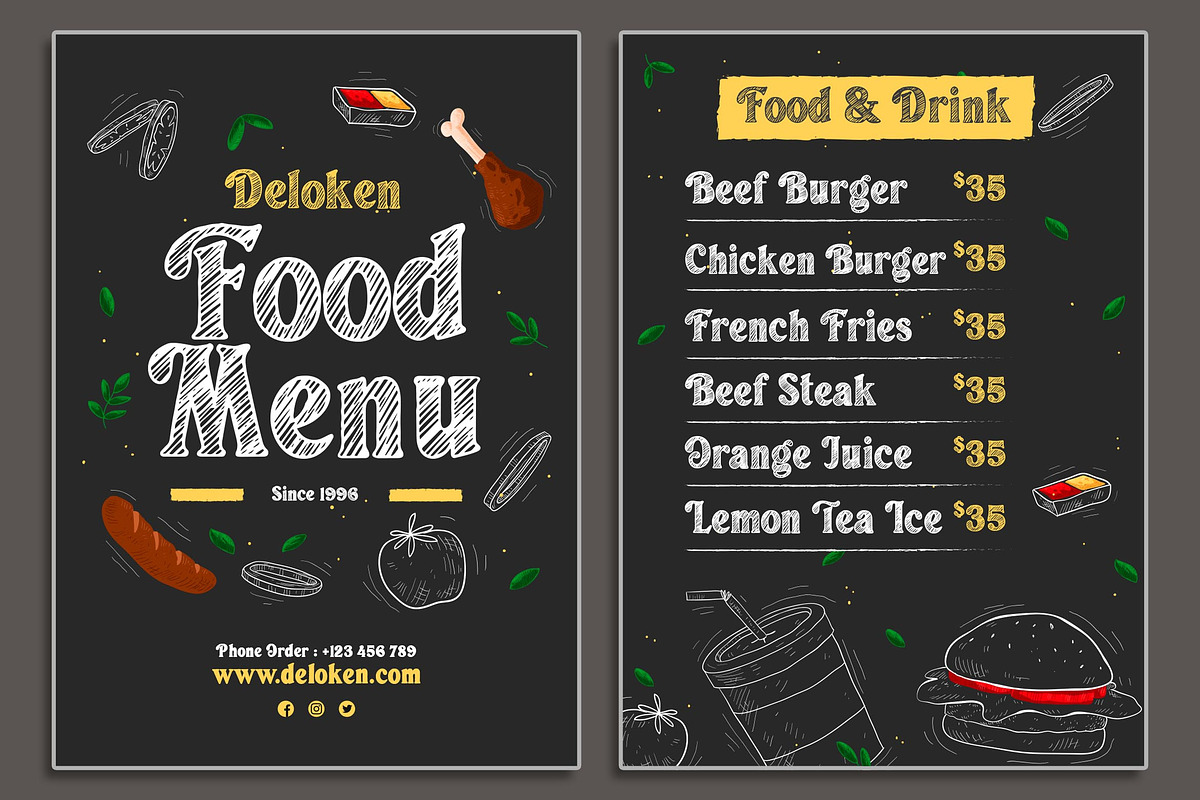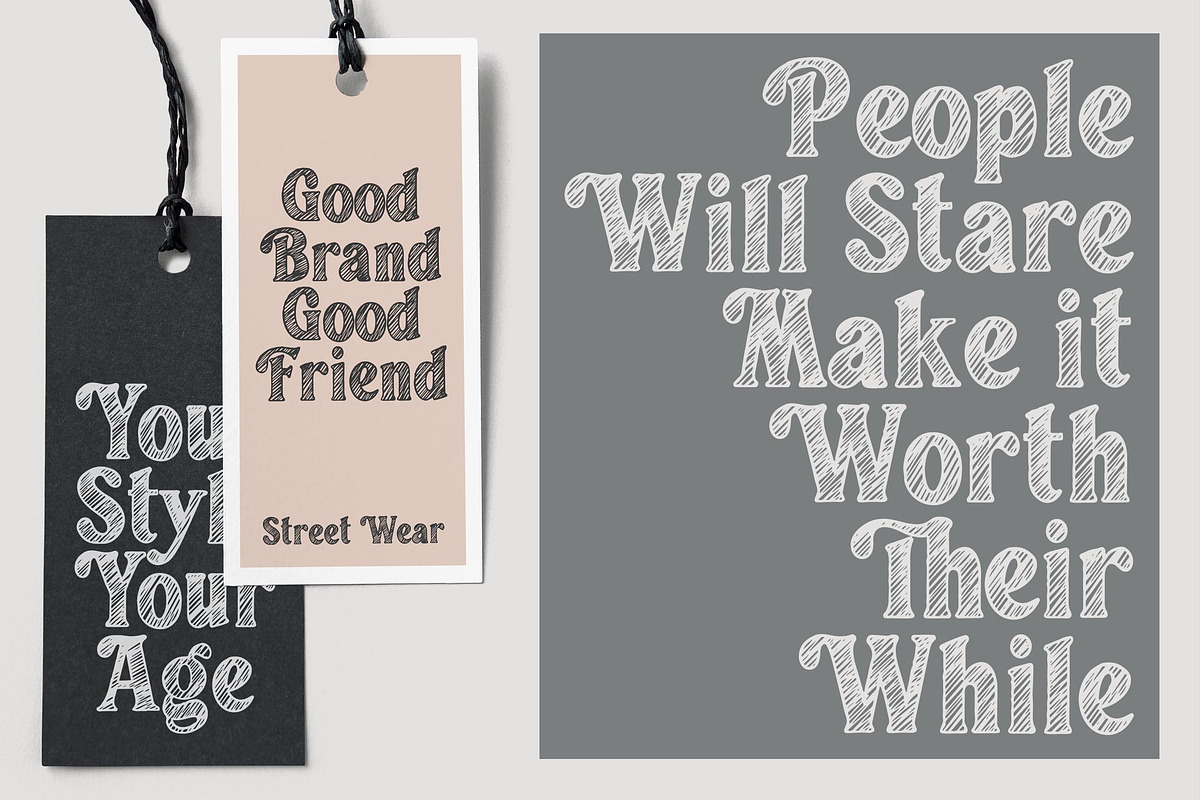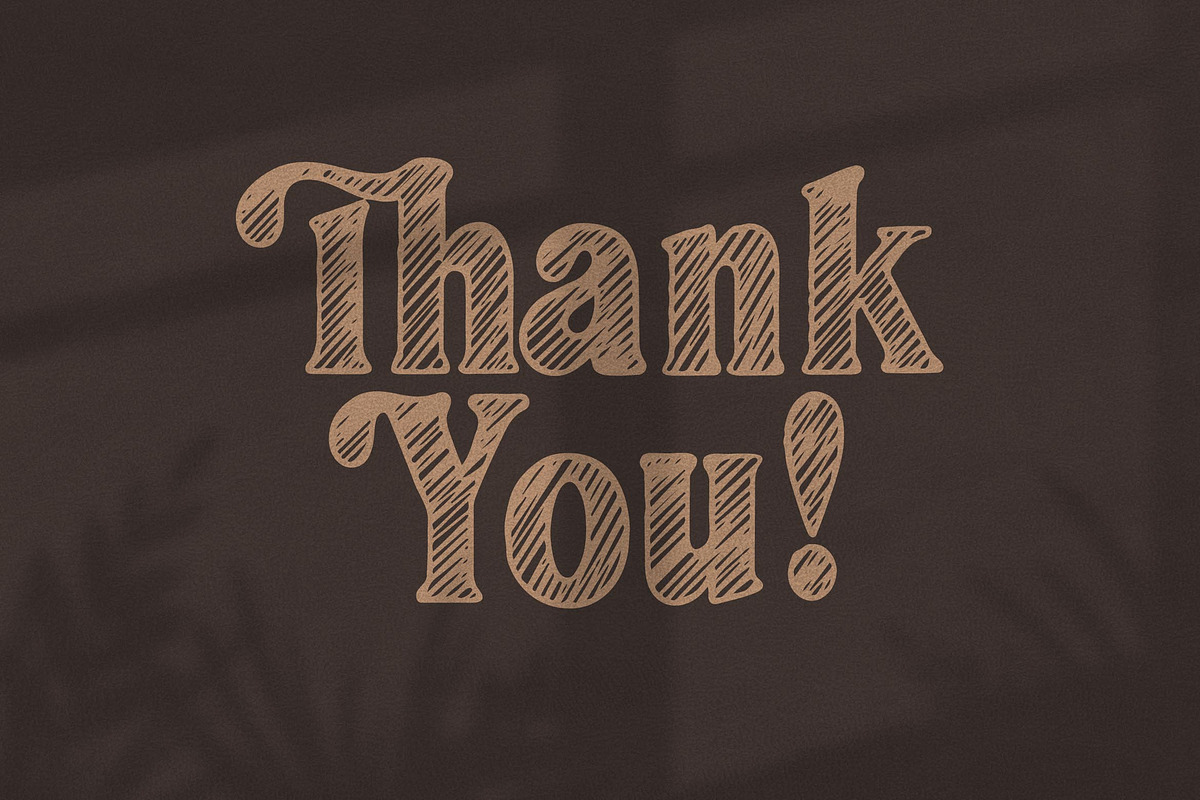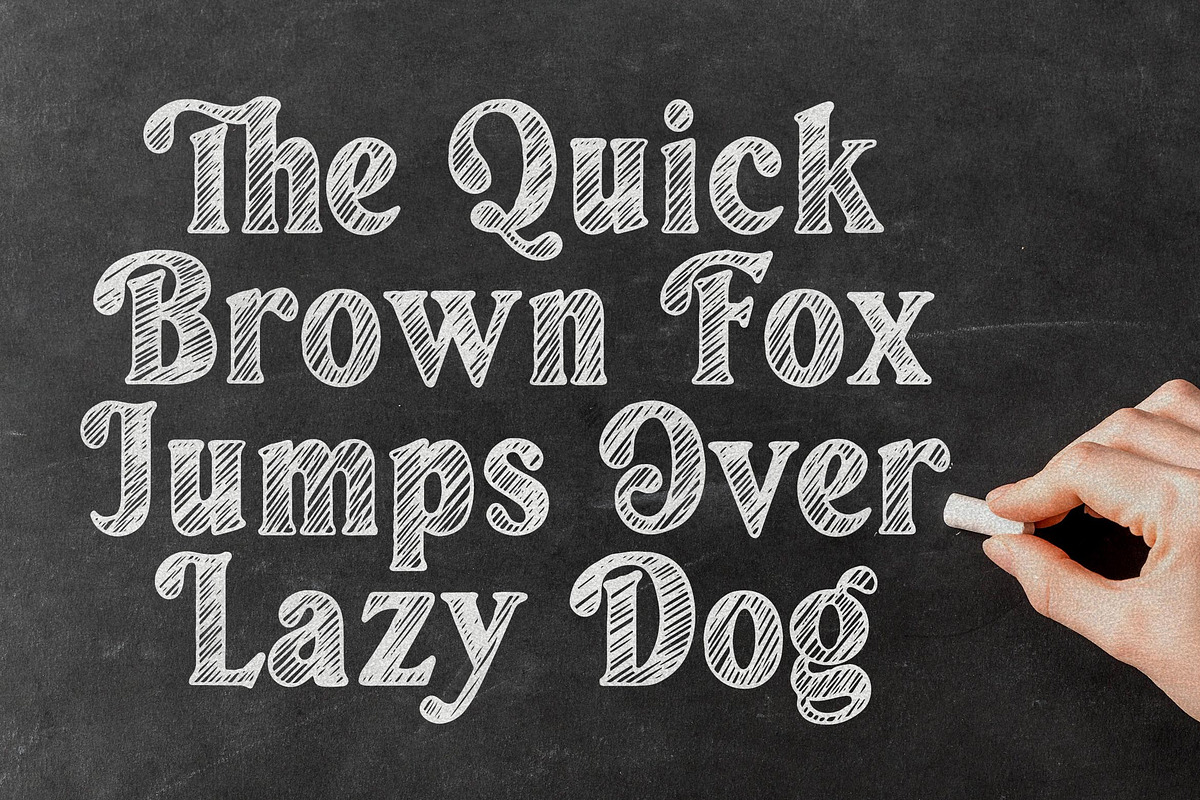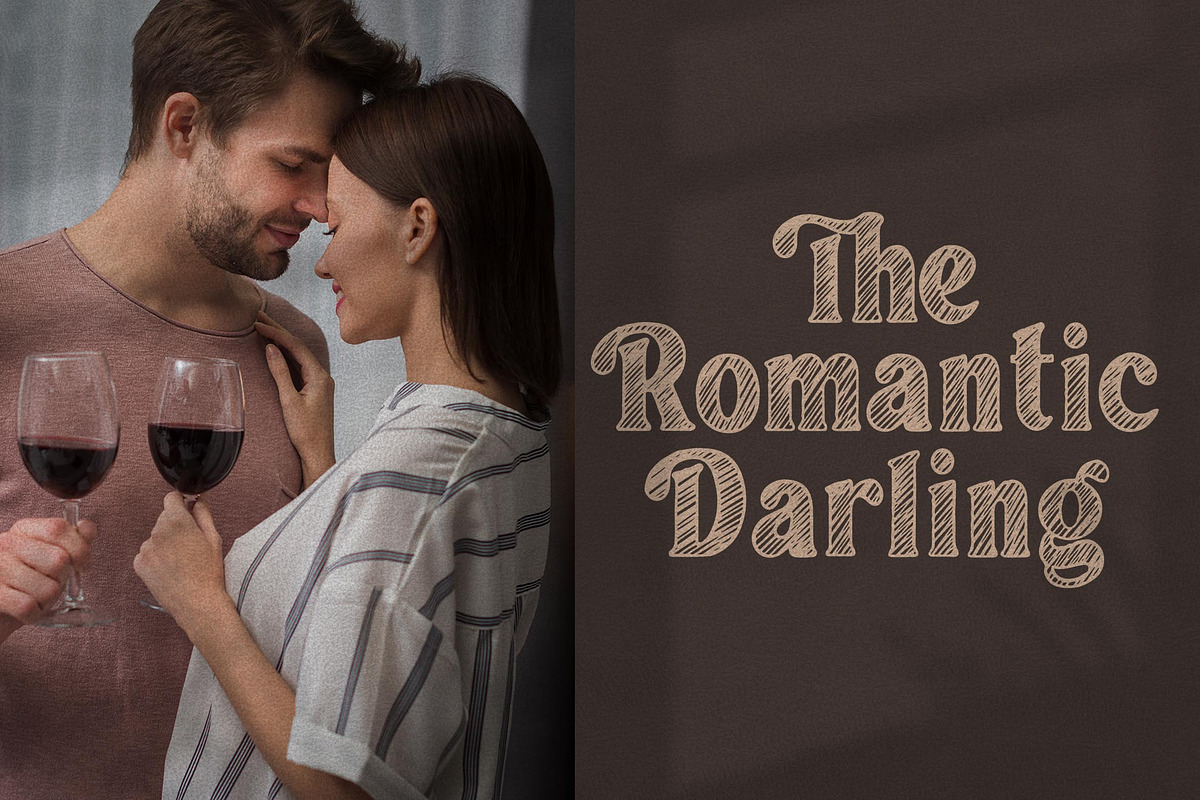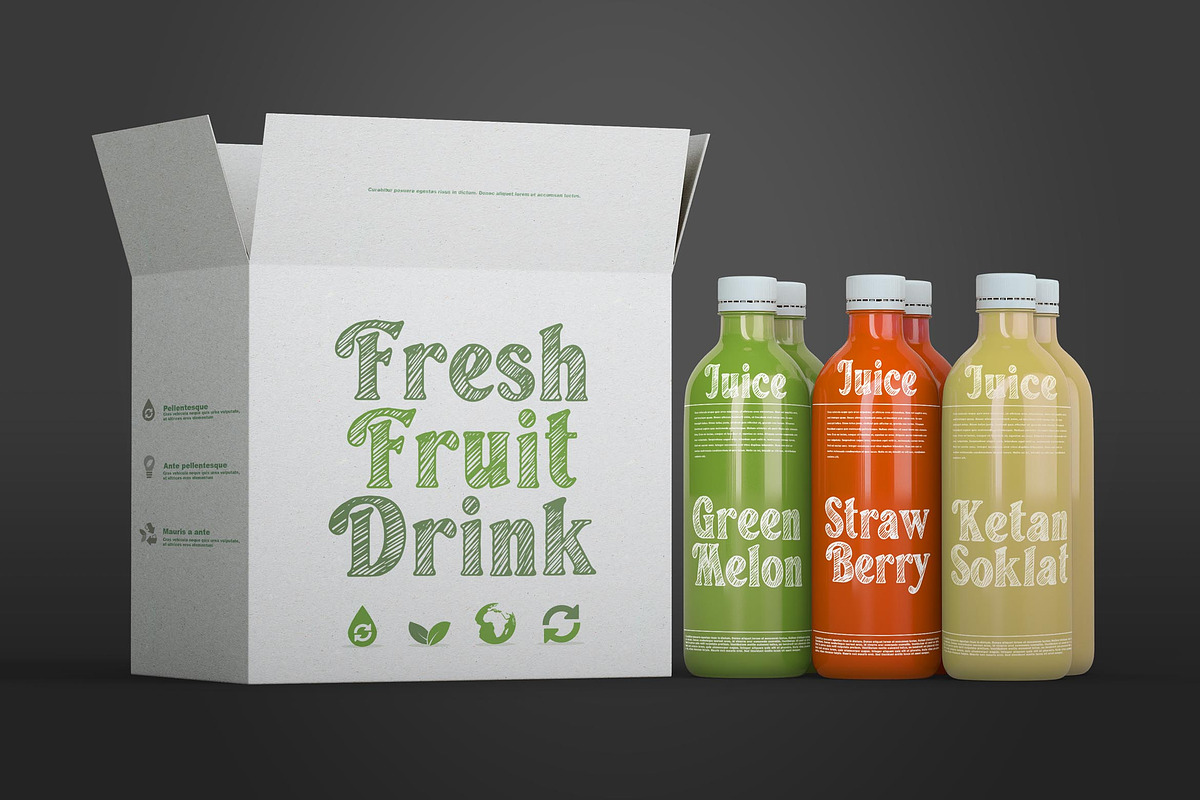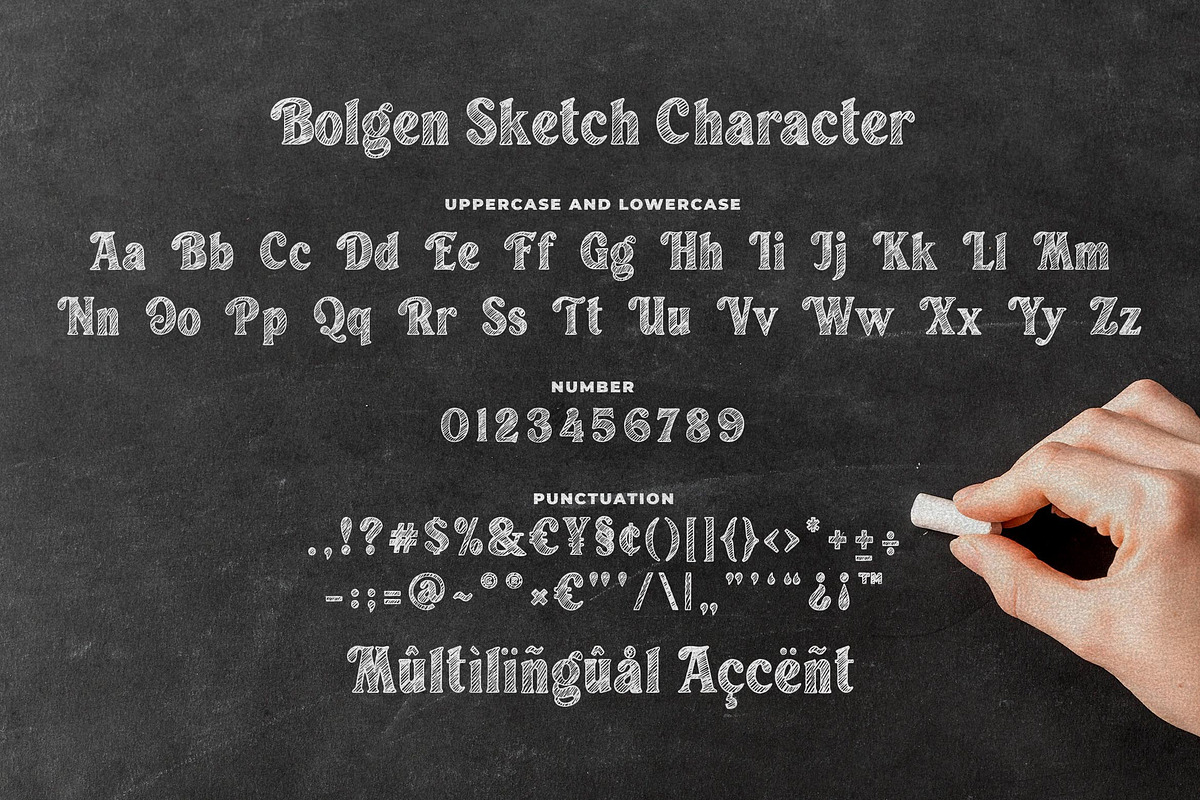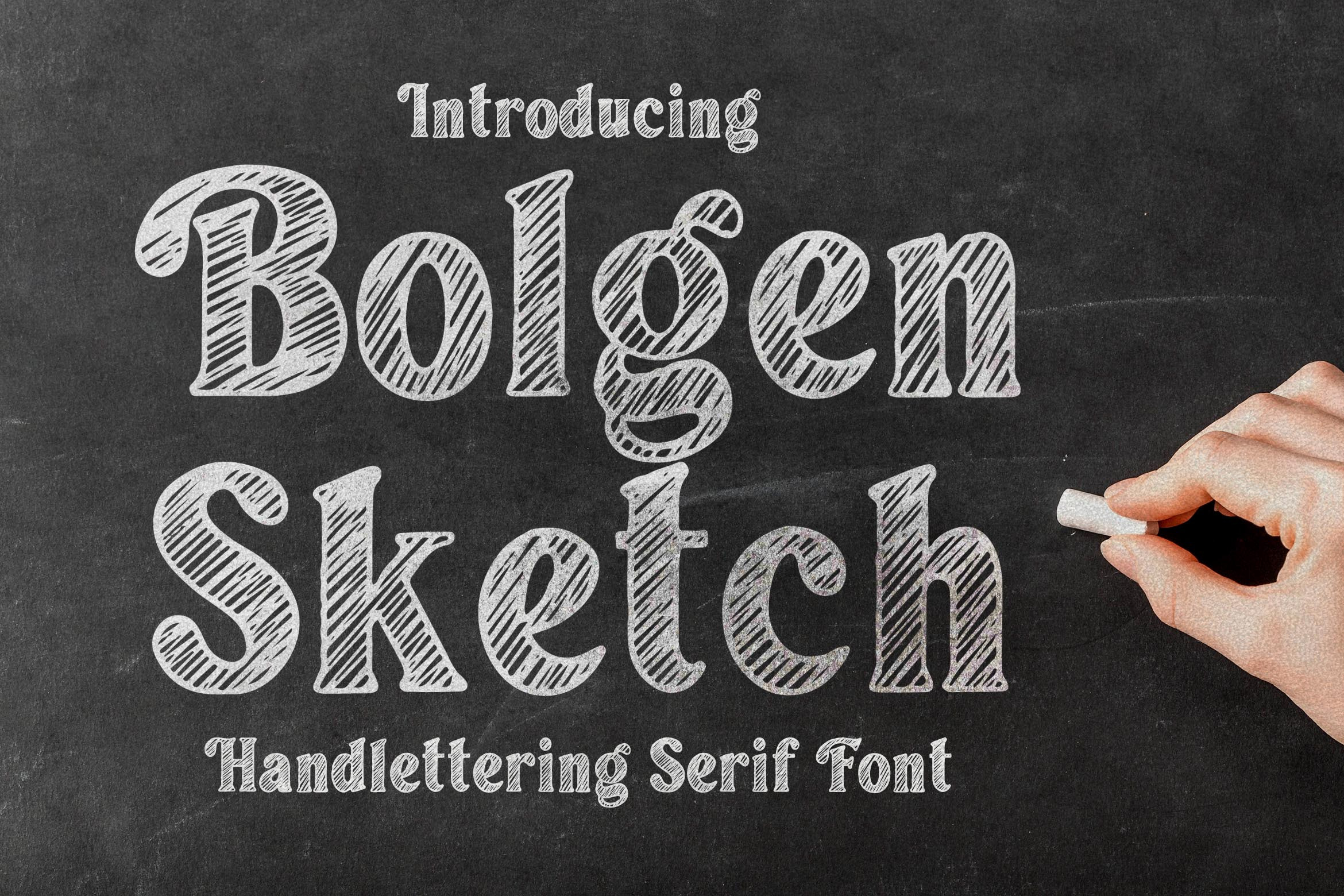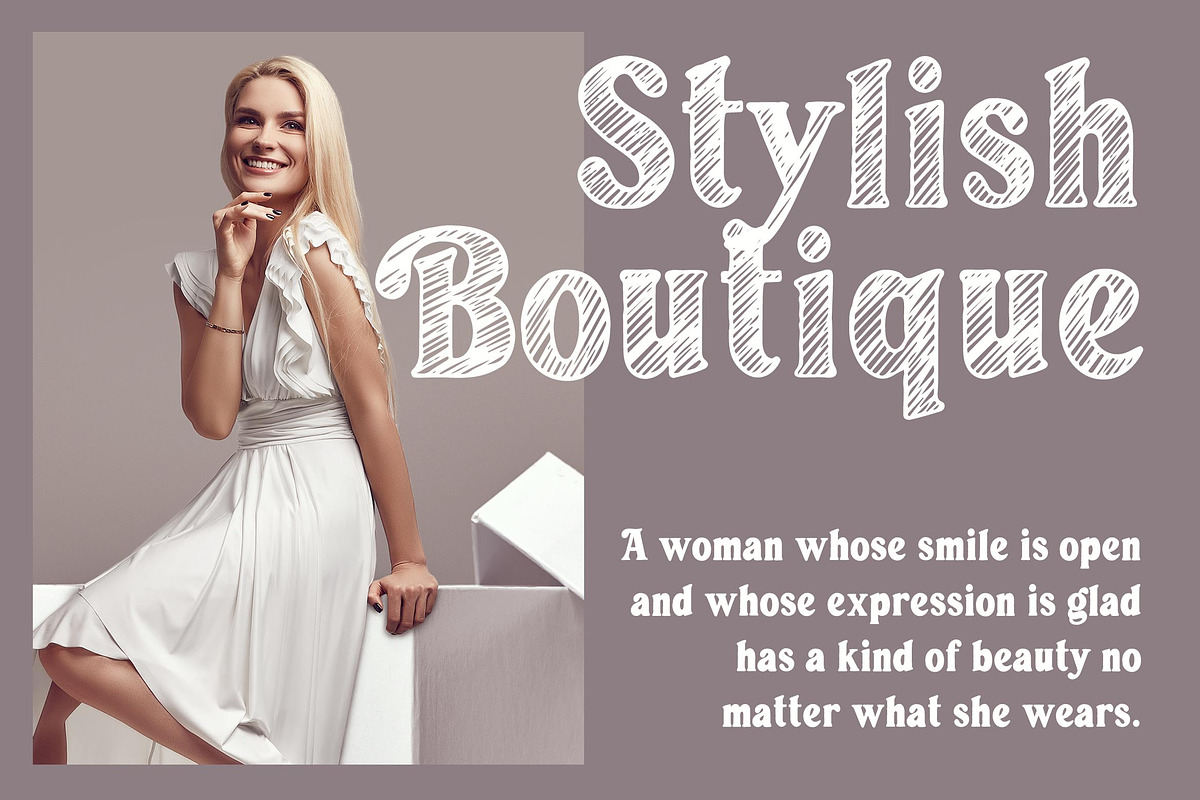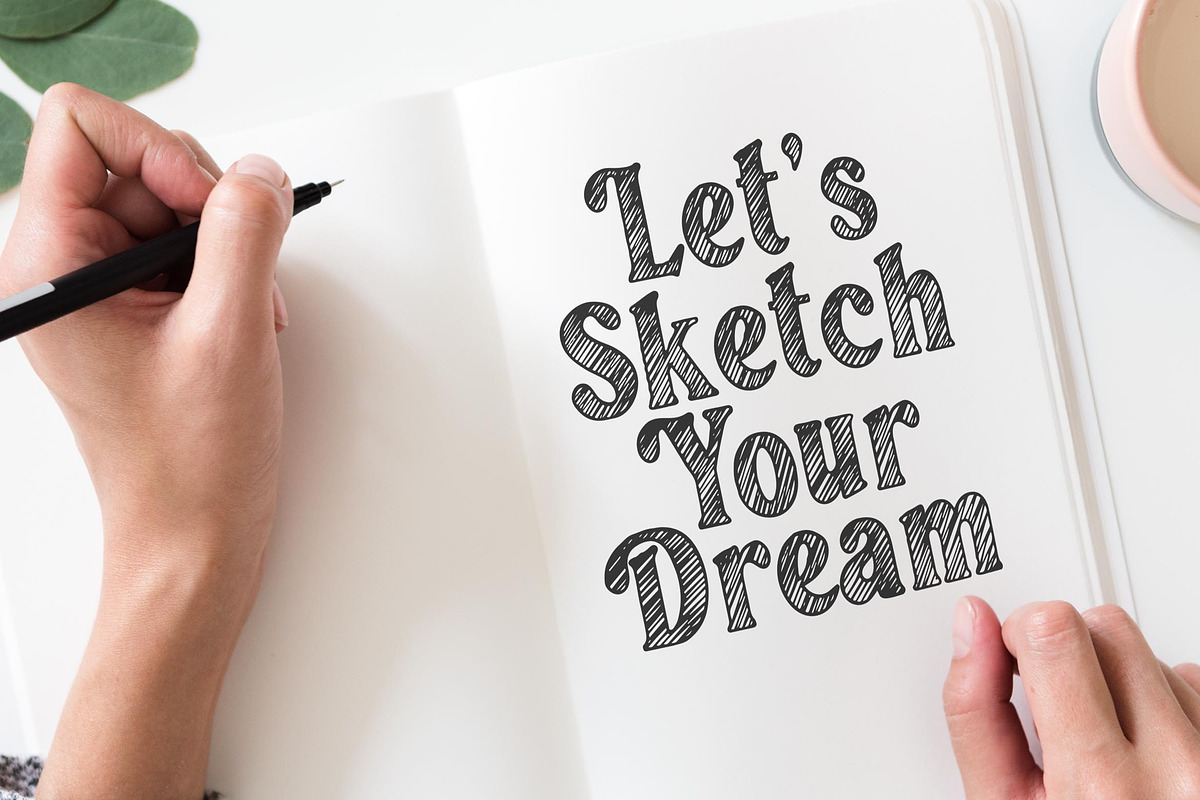
Bolgen Handlettering Serif font
Introducing of our new product the name is Bolgen Handlettering Serif font. Bolgen inspired by Sketch Style Lettering this font is a fun theme very good for display, tshirt design, craft, quote sign, logotype and etc